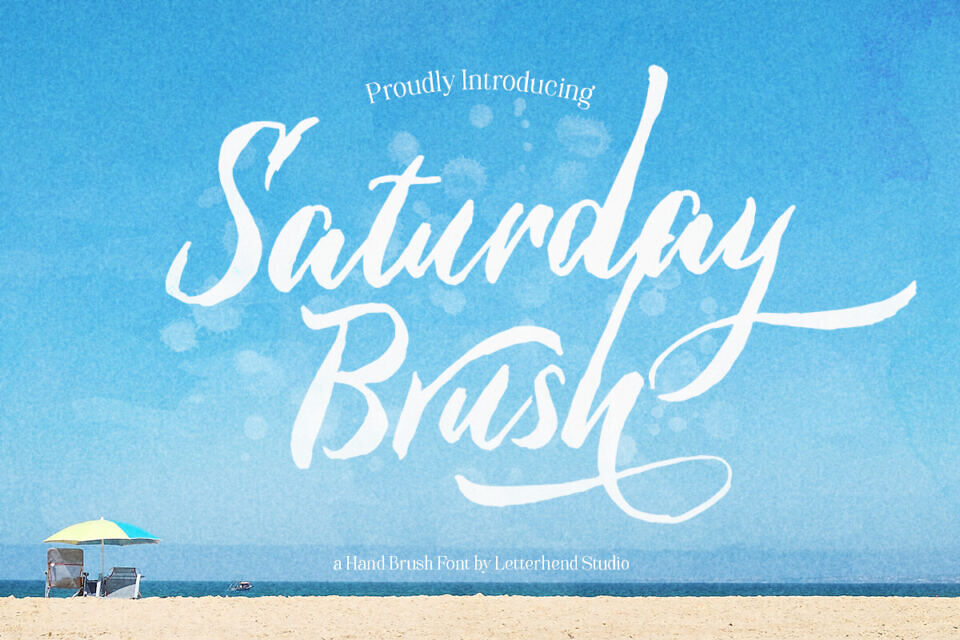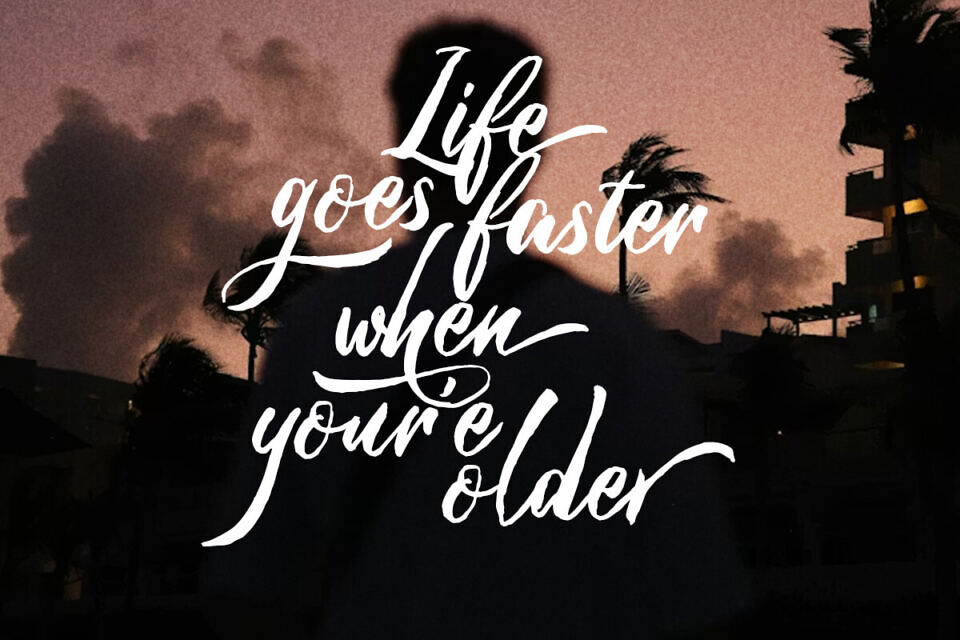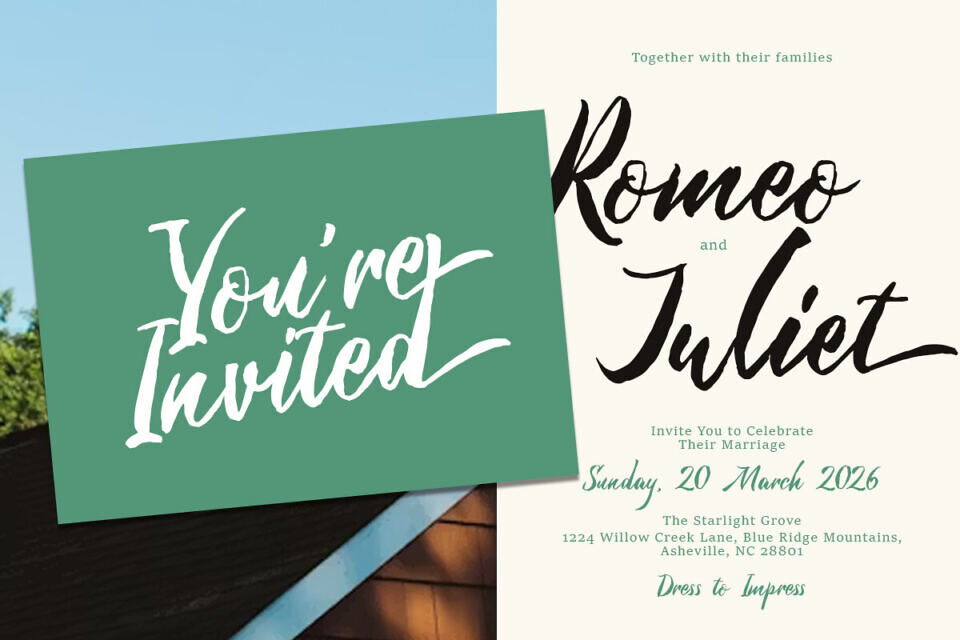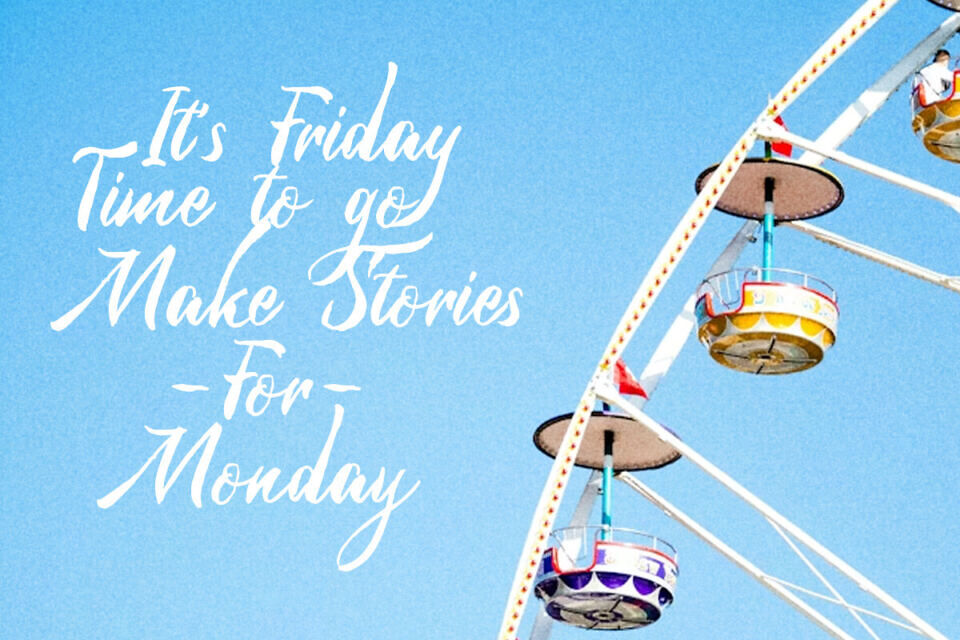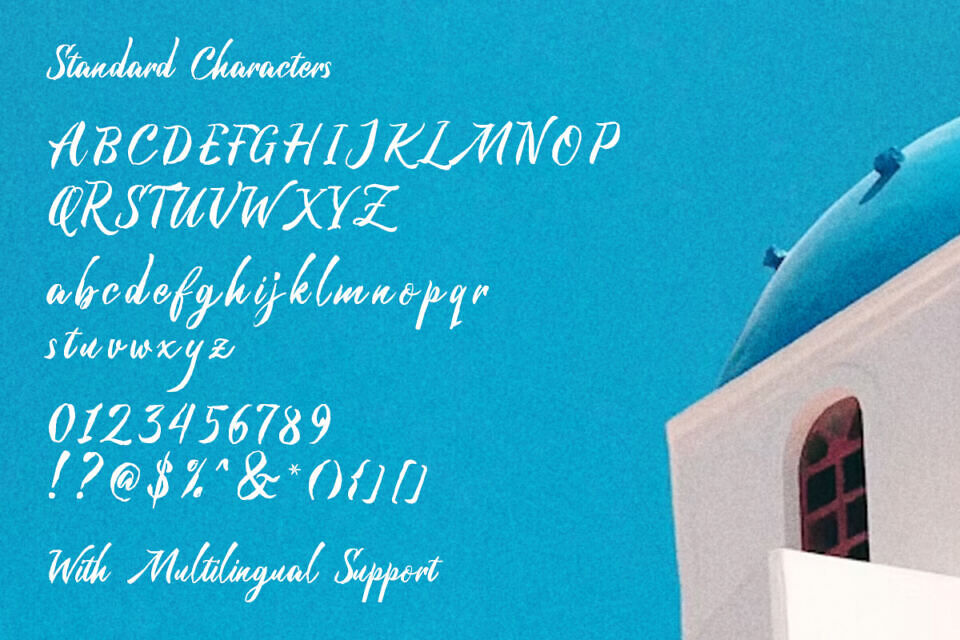
Saturday Brush is that carefree weekend energy turned into lettering. With loose hand-brushed strokes, breezy curves, and a natural flow that feels organic and lively, giving designs that easygoing coastal mood—like salty air, bright skies, and slow mornings by the shore.